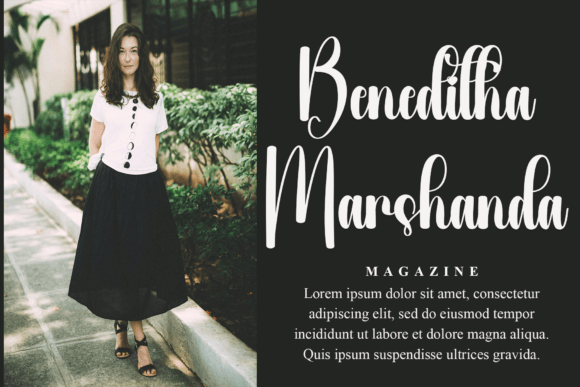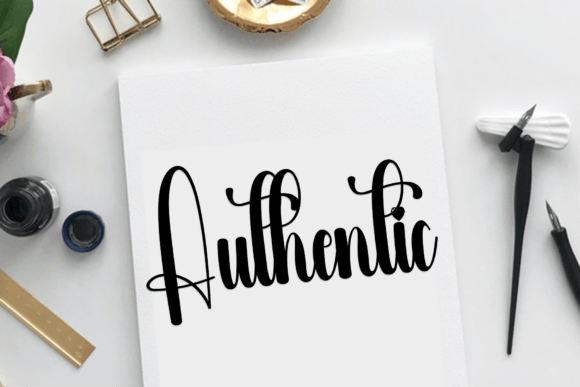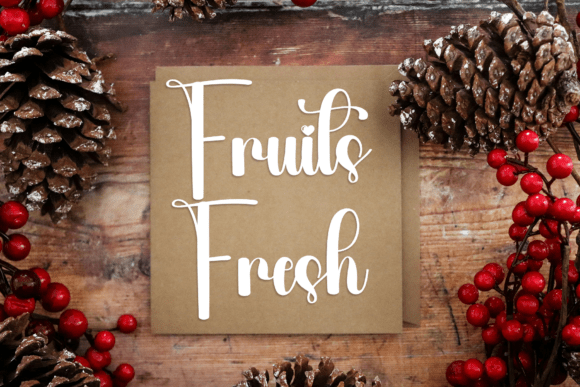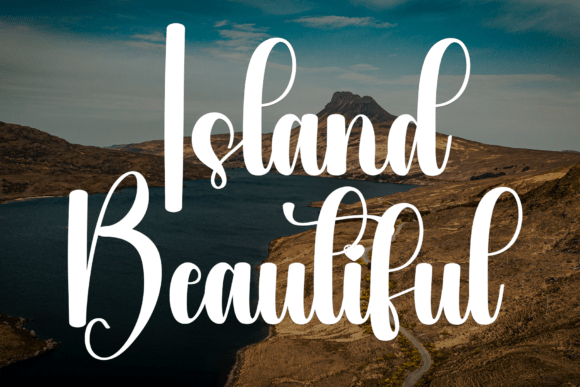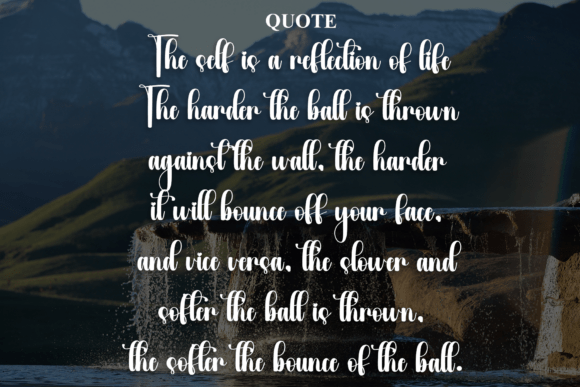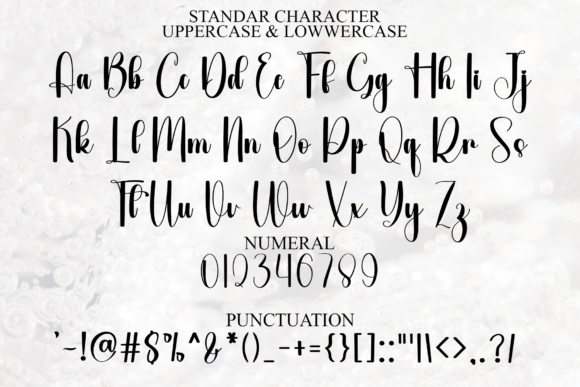
Introducing Christmas Checklist Font: The Ultimate Holiday Typeface
The holiday season is upon us, and with it comes the joy of creating festive and merry designs that capture the spirit of Christmas. As a designer or crafter, you’re likely on the lookout for the perfect font to add a touch of enchantment to your projects. Look no further than Christmas Checklist Font, a beautiful and whimsical typeface that’s sure to bring a cheerful and nostalgic ambiance to your words.
Christmas Checklist Font is a decorative font that’s specifically designed to evoke the magic of the holiday season. With its intricate details and whimsical flair, it’s the perfect choice for adding a touch of festive fun to your designs. Whether you’re creating greeting cards, gift tags, or holiday-themed projects, this font is sure to make your typography shine.
So, what can you use Christmas Checklist Font for? The possibilities are endless! Here are just a few ideas to get you started:
- Greeting cards: Create festive and personalized greeting cards for your loved ones, complete with decorative envelopes and matching stationery.
- Gift tags: Add a touch of elegance and sophistication to your gifts with custom gift tags featuring Christmas Checklist Font.
- Holiday-themed projects: From Christmas decorations to holiday-themed party invitations, this font is perfect for any project that requires a touch of festive flair.
One of the best things about Christmas Checklist Font is that it’s PUA (Private Use Area) encoded, which means you can access all of the amazing glyphs and ligatures with ease. This makes it simple to add decorative elements to your designs, without having to worry about complicated font installation or editing.
Why Choose Christmas Checklist Font?
So, why should you choose Christmas Checklist Font for your holiday projects? Here are just a few reasons:
- Unique and eye-catching: This font is sure to stand out from the crowd, with its intricate details and whimsical flair.
- Festive and merry: Christmas Checklist Font is specifically designed to evoke the spirit of the holiday season, making it perfect for festive and merry designs.
- Easy to use: With its PUA encoding, you can access all of the amazing glyphs and ligatures with ease, making it simple to add decorative elements to your designs.
Tips for Using Christmas Checklist Font
Here are a few tips for getting the most out of Christmas Checklist Font:
- Experiment with different sizes and colors: Don’t be afraid to try out different sizes and colors to see what works best for your design.
- Pair with other fonts: Christmas Checklist Font pairs well with a variety of other fonts, so don’t be afraid to experiment with different combinations.
- Use it sparingly: While Christmas Checklist Font is perfect for adding a touch of festive flair to your designs, it’s best used sparingly to avoid overwhelming the senses.
Christmas Checklist Font is a beautiful and whimsical typeface that’s perfect for adding a touch of enchantment to your holiday designs. With its decorative elements and whimsical flair, it’s sure to bring a cheerful and nostalgic ambiance to your words. Whether you’re a designer or crafter, this font is a must-have for any holiday project. So why wait? Download Christmas Checklist Font today and let your typography shine with the magic of the holiday season!